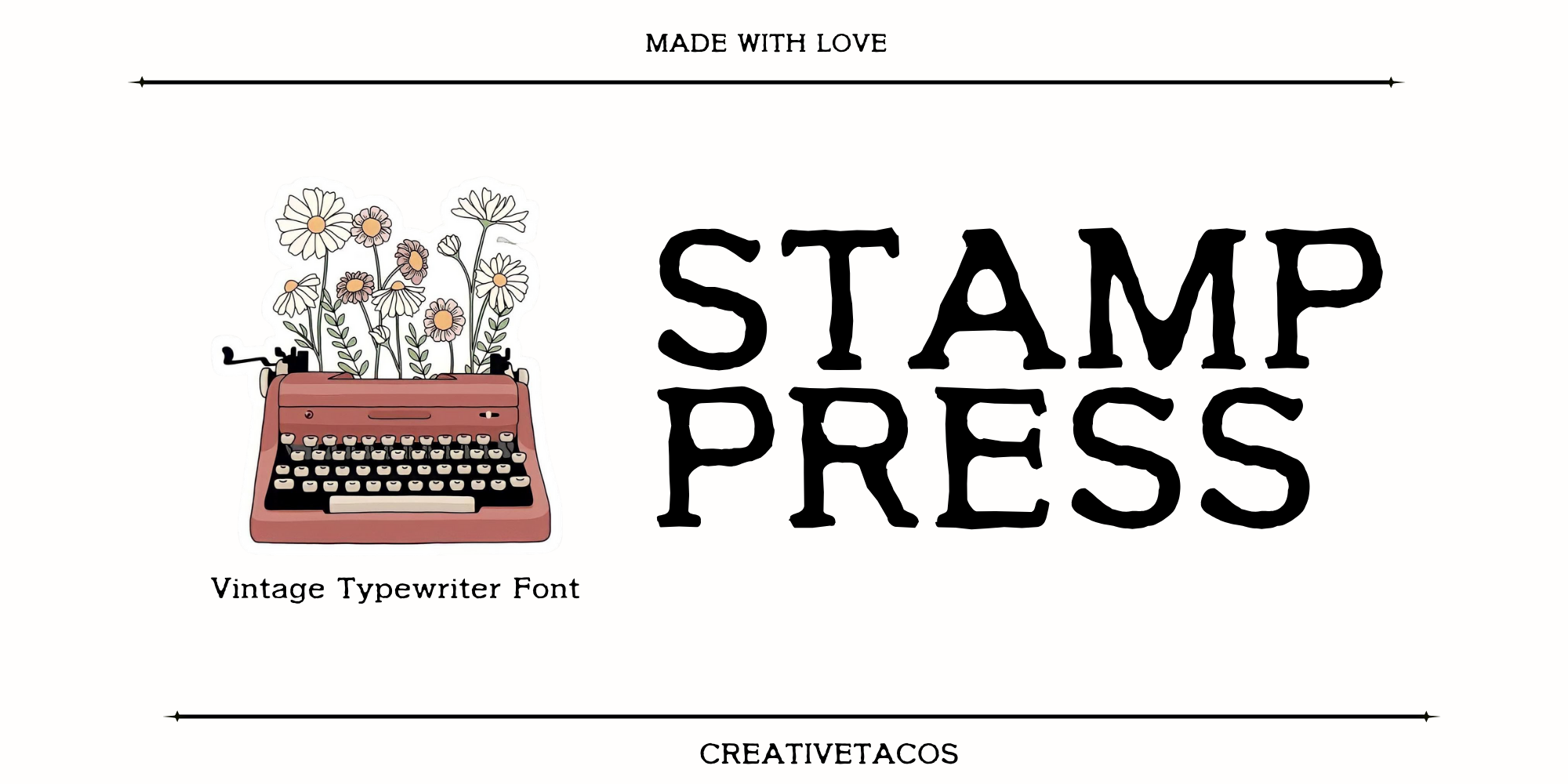
Stamp Press Font is perfect for a wide range of design applications including vintage packaging designs, artisanal product labels, retro postal materials, authentic stamp collections, industrial branding projects, heritage museum displays, craft workshop signage, handmade product packaging, nostalgic greeting cards, and traditional editorial layouts.
What makes Stamp Press Font exciting is its authentic industrial character and vintage craftsmanship that perfectly captures the mechanical precision and timeless appeal of traditional letterpress printing and stamp manufacturing processes. This distinctive typeface brings a sense of artisanal quality and historical authenticity to any project with its carefully crafted letterforms that showcase the characteristic impressions and mechanical textures of vintage printing methods. The font's robust character shapes and industrial proportions create an atmosphere of handcrafted excellence and manufacturing heritage that resonates with audiences seeking authenticity, tradition, and artisanal quality, making it an ideal choice for brands emphasizing craftsmanship, heritage, and authentic production methods.
The Stamp Press Font family includes multiple weights and styles designed to accommodate various vintage and industrial design requirements. The collection typically features regular, bold, distressed, and pressed variations, each maintaining the font's signature stamped aesthetic while providing comprehensive design flexibility. Additional industrial symbols and vintage ornaments enhance the family's creative potential for heritage-focused design projects.
Professional designers appreciate Stamp Press Font's exceptional authenticity and comprehensive character support. The font includes extensive punctuation marks, numerical figures, industrial symbols, and international language capabilities, making it perfect for global heritage brands and international craft projects. Its mechanically optimized spacing and kerning ensure professional results in packaging, labeling, and industrial branding applications.
The increasing popularity of Stamp Press Font in the design community reflects its ability to enhance brand authenticity and create memorable visual experiences that celebrate traditional manufacturing methods and artisanal craftsmanship. Whether used for craft product branding, heritage industry materials, or vintage creative projects, this font delivers exceptional results that honor the enduring appeal of mechanical printing and stamp production traditions.